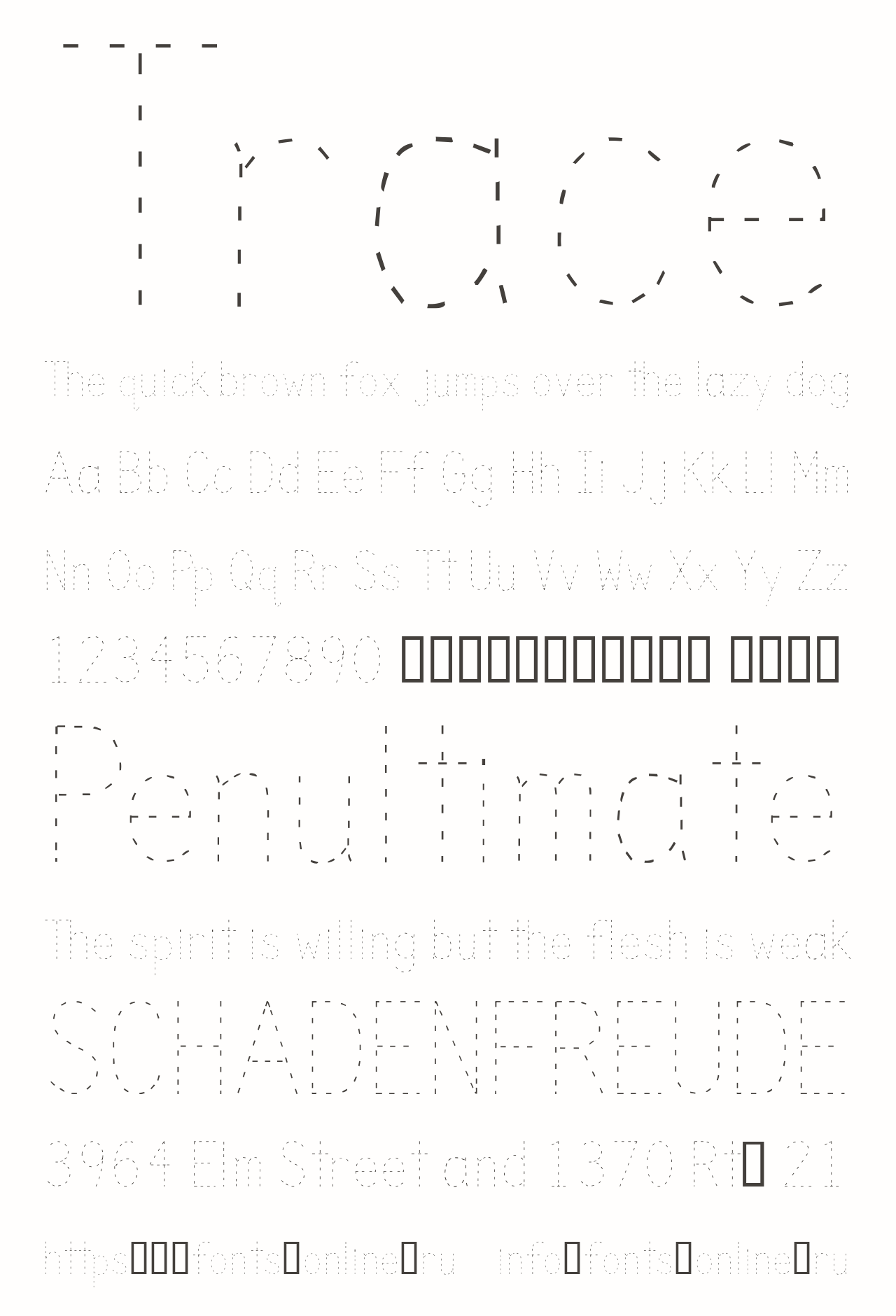
Finding the perfect font for your project can be a challenge, especially when you want something unique and eye-catching. Many designers seek tools that allow them to customize fonts easily. One such tool is tracing fonts.
Additionally, tracing fonts can be used in educational materials. Teachers often utilize these fonts to create worksheets that help students learn handwriting or improve their artistic skills. It’s a fun way to engage learners while enhancing their creativity.
In conclusion, tracing fonts with lines are a fantastic resource for anyone looking to elevate their design projects. With free downloads available online, you can easily access these unique fonts and start creating today.